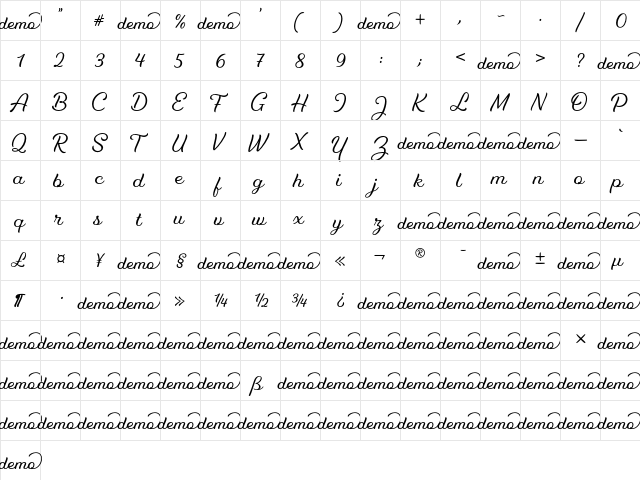
Kamila-DEMO Regular
| Foundry | SevenType |
| Designer | Vitoria Neves |
Design Context for Kamila-DEMO Typeface
Kamila-DEMO is a composed and adaptable typeface that performs quietly and consistently across a wide range of design contexts.